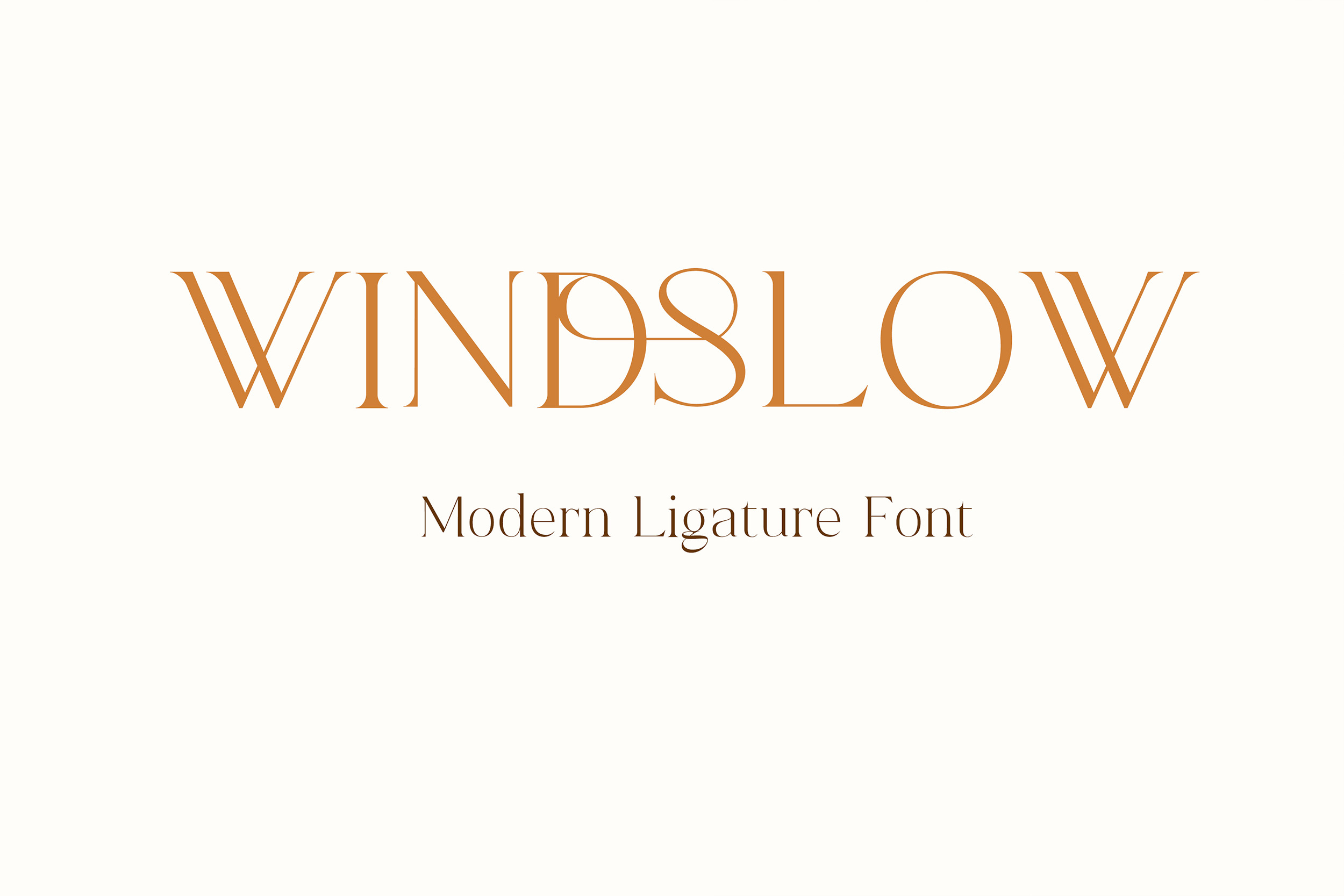
Windslow Modern Ligature Serif Font
17 New Ligatures were added in march 2021.
Classic and elegant serif font is ideal for creating logon and Brand Identities. With large variations of original ligatures.
It works perfect for creating stylish logos, striking editorials, invitations, graphic quotes, and more.